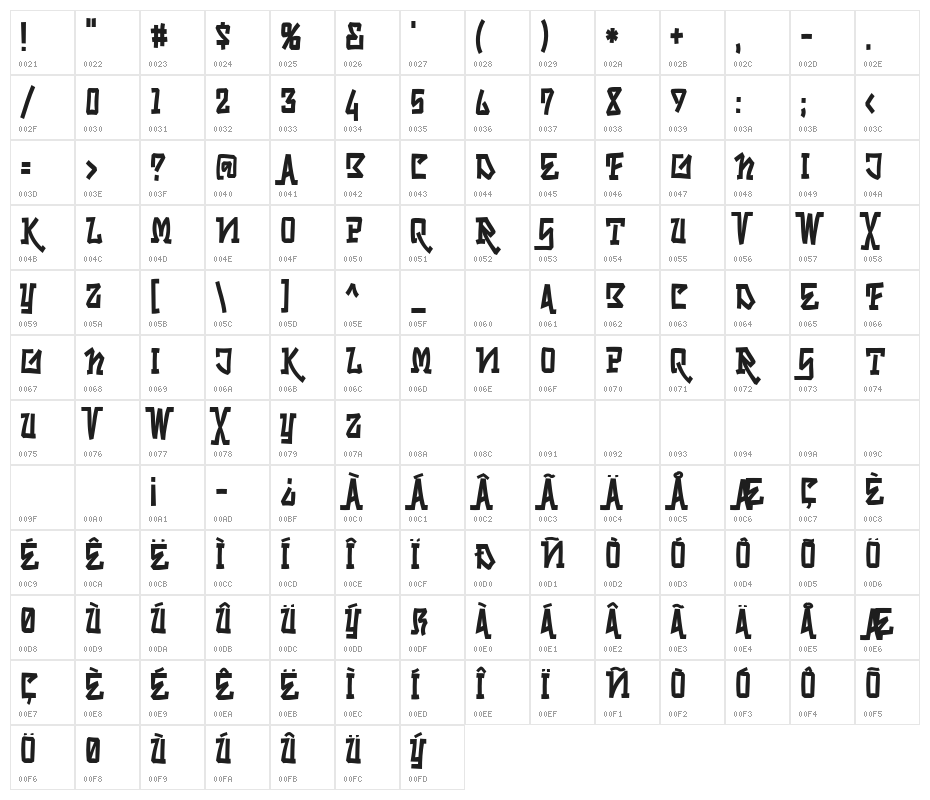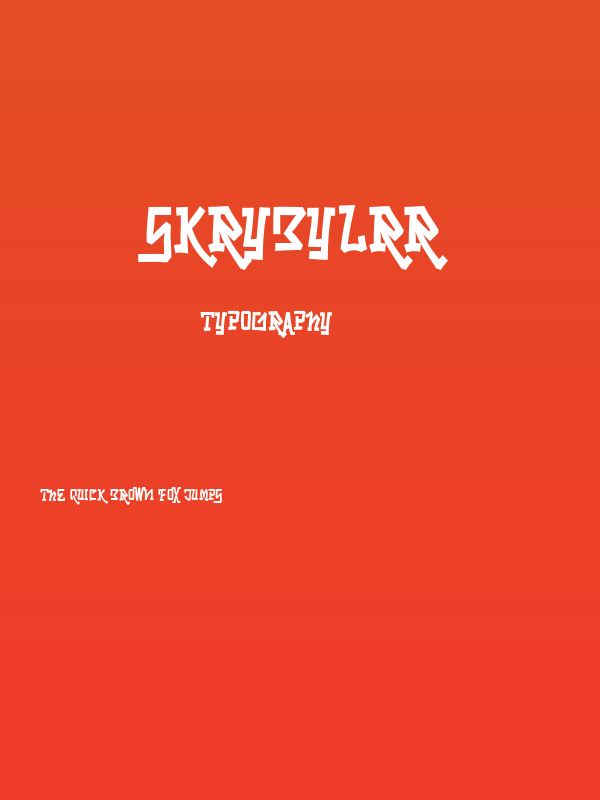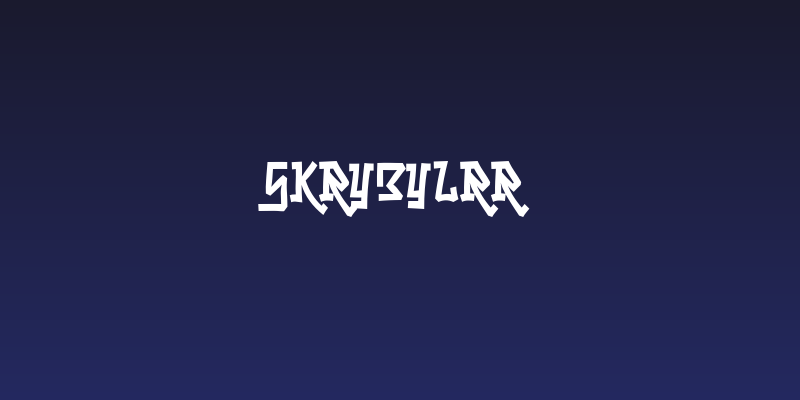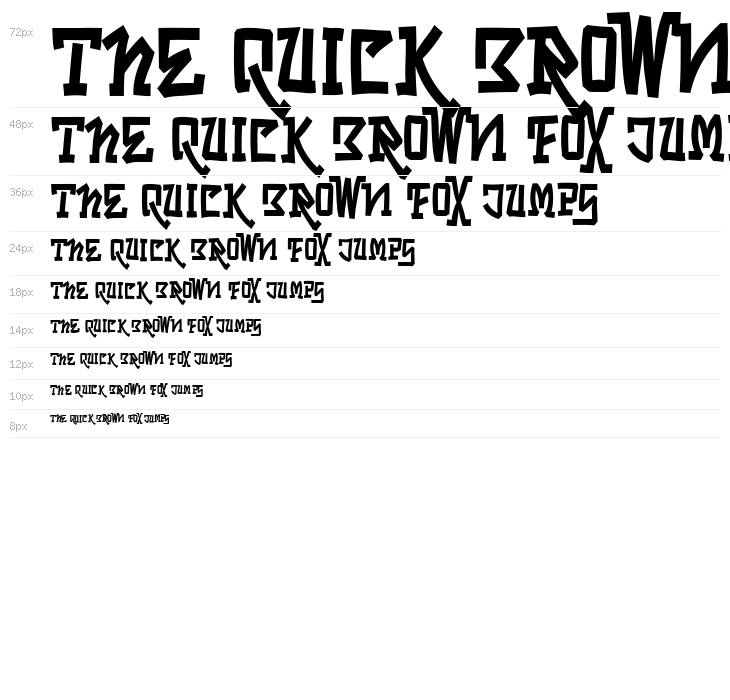
Skrybylrr Font
Skrybylrr Description
This font features a bold and angular design with a distinct graffiti-inspired style. The characters are heavily stylized, with sharp edges and unique geometric forms that give it a dynamic and edgy appearance. The uppercase and lowercase letters maintain a consistent aesthetic, with some letters incorporating unexpected angles and cuts. The numbers and special characters follow the same design principles, ensuring a cohesive look across all glyphs. This font's striking appearance makes it ideal for projects that require a strong visual impact.
Proposed ProjectsIdeal for street art designs, urban-themed posters, edgy branding, and music album covers.